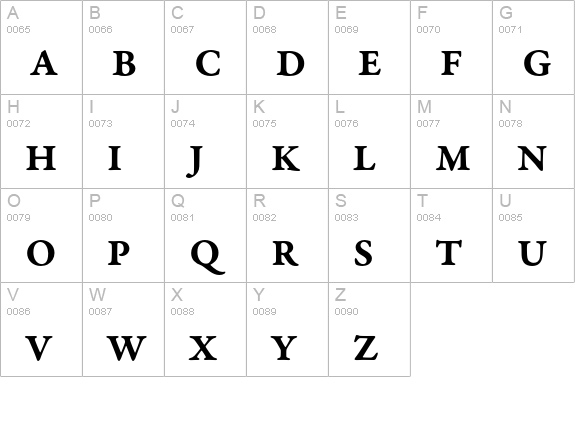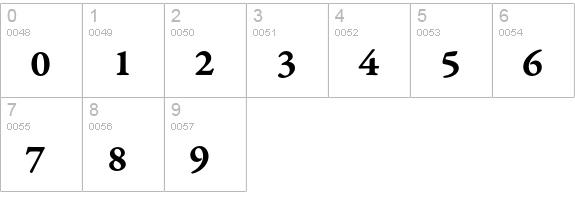
Garamond Premier Pro Semibold Caption Font Details
Garamond Premier Pro Semibold Caption is a sub-bold, structured variant in the Garamond typeface family \xE2\x80\x94 well suited to sub-headlines and emphasised passages.
Garamond Premier Pro Semibold Caption is a sophisticated and elegant font that exudes professionalism and refinement. With its slightly bolder weight, this font is perfect for adding emphasis and impact to your text while maintaining a sense of sophistication. The clean lines and classic design of Garamond Premier Pro Semibold Caption make it perfect for a wide range of design projects, from elegant invitations to professional presentations. Its versatile nature allows it to seamlessly blend into various design styles and themes. Whether you are working on a print project or a digital design, Garamond Premier Pro Semibold Caption will elevate your work and give it a timeless appeal. Its readability and clarity make it an excellent choice for body text, headings, or any other text elements that require a touch of elegance. The best part is that Garamond Premier Pro Semibold Caption is available for free download at FontsMarket.com. So you can easily access this high-quality font and enhance your designs without any hassle. Don't miss out on the opportunity to elevate your projects with this stunning typeface.